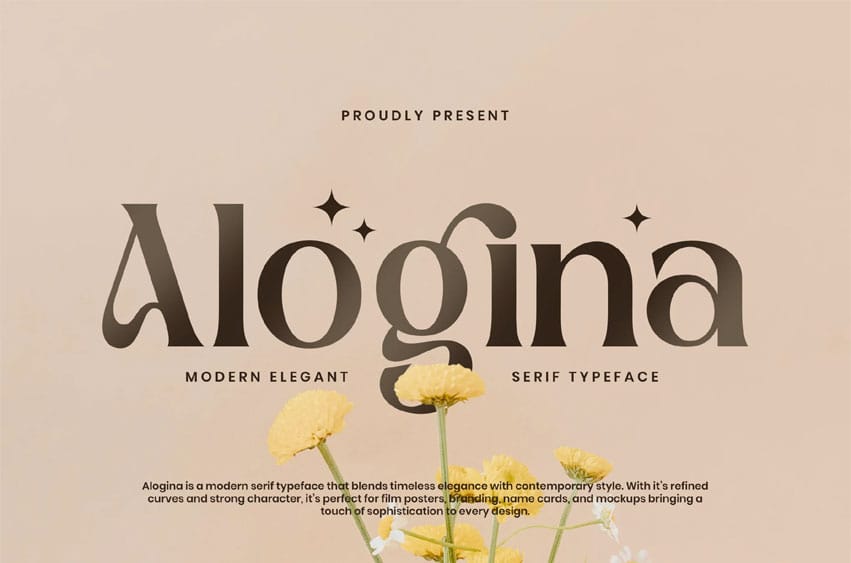
Alogina Font is a modern elegant serif font crafted to bring timeless sophistication and contemporary style into one seamless typeface. Designed with refined details, balanced proportions, and graceful contrast, Alogina delivers a luxurious visual presence that elevates any creative project instantly.
This font is perfect for designers who seek a premium serif with a modern soul — ideal for branding, editorial design, fashion visuals, luxury packaging, logos, wedding designs, and high-end marketing materials. Alogina combines classic serif elegance with a clean modern touch, making it versatile for both digital and print applications.
Every character in Alogina is thoughtfully designed to ensure excellent readability while maintaining a distinctive, stylish personality. Whether you’re building a strong brand identity, designing magazine layouts, or creating sophisticated headlines, Alogina adds a sense of confidence, elegance, and professionalism to your work.
Bring elegance, clarity, and modern luxury into your typography with Alogina – Modern Elegant Serif Font, a perfect choice for designers who value style, quality, and timeless appeal.